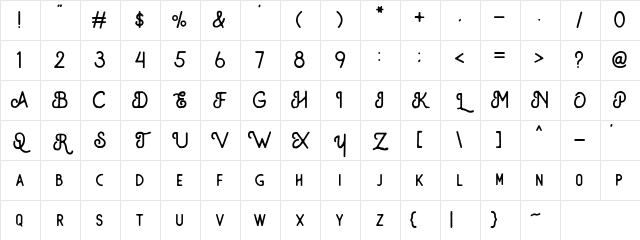
The Monokill Vintage Free Font
The Monokill Vintage
Style: Vintage
Foundry: Boldirens Co
Designer: Boldirens Co
Design Context for The Monokill
The Monokill wears its vintage influences proudly, with letterforms that recall mid-century signage, classic packaging, and nostalgia-driven design.
Font Pairing: Combine The Monokill with a simple slab or neutral sans - period-accurate companions reinforce the vintage feel without competing for attention.
Pro Tip: Lean into The Monokill's period character by pairing it with aged paper textures, muted colour palettes, and vintage illustration styles.